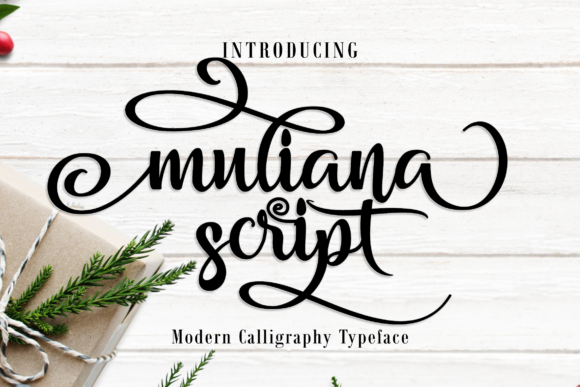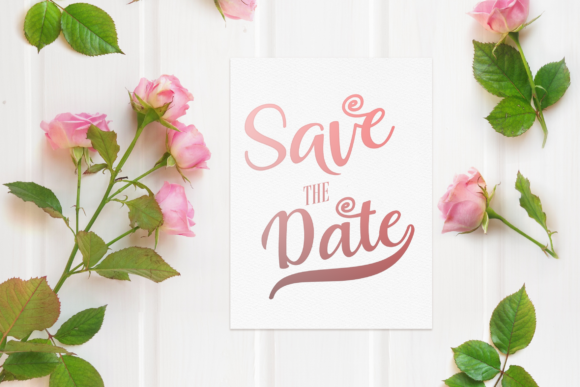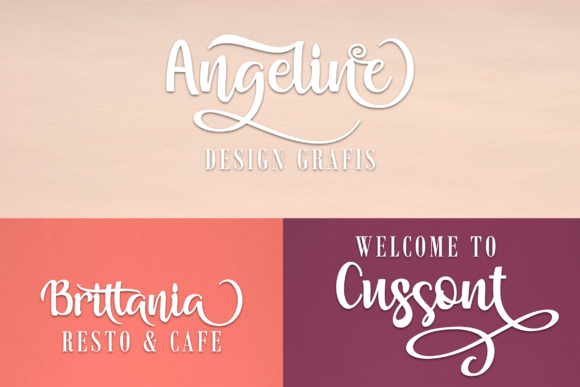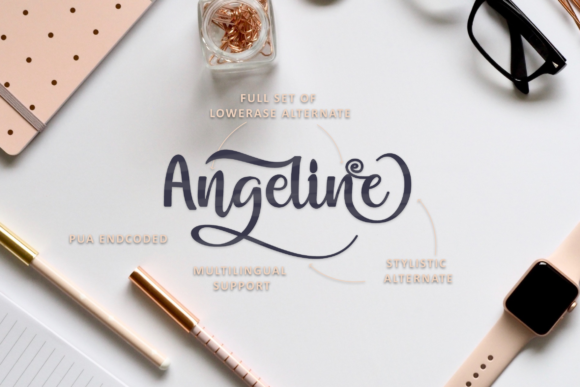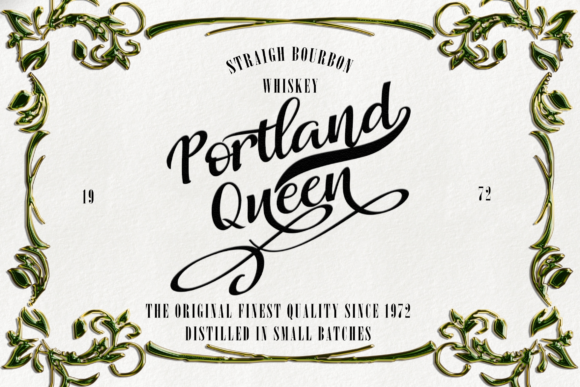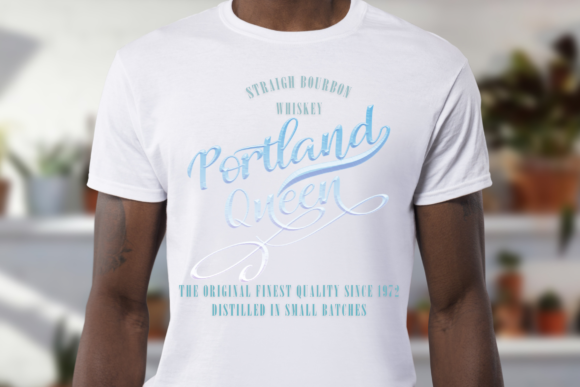
Muliana Script Font
About Muliana Script Font
The Muliana is a fresh and modern script font. It has a handmade calligraphy style with decorative characters and a dancing baseline.
It’s perfect for greeting cards, branding materials, business cards, quotes, posters, and more!!